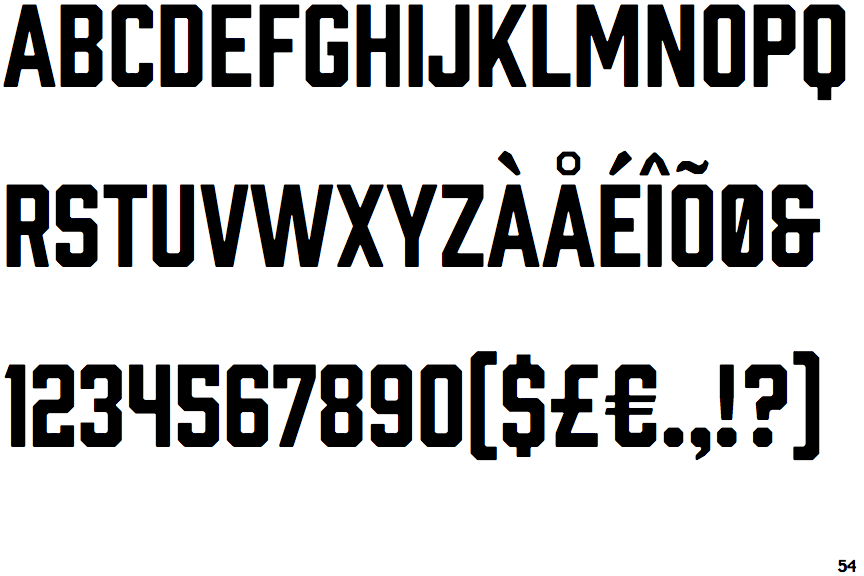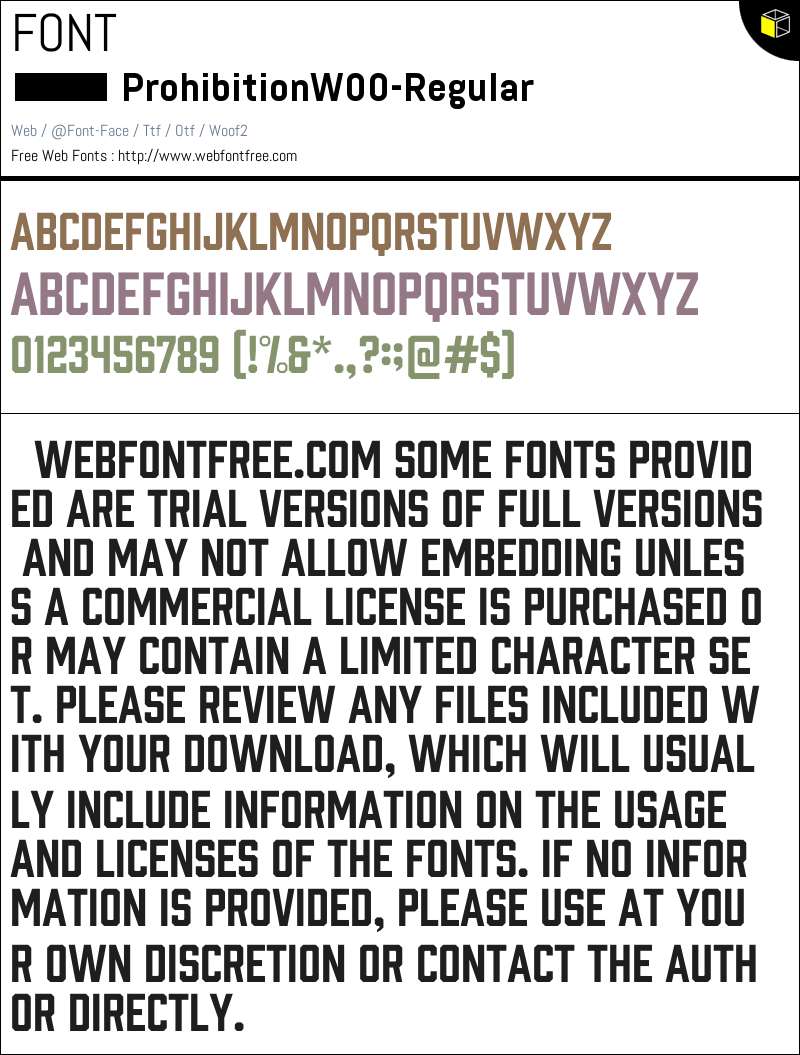
Prohibition Regular Font . Packed with some new features, this vintage sans typeface takes cues from. Web explore prohibition designed by mattox shuler at adobe fonts.
A sans serif typeface with 2 styles, available from adobe fonts for sync. Web prohibition display font family, is a beautiful vintage type family by mattox shuler and published by fort foundry. With this tool, you can easily copy your desired text in svg format without the need to.
Web thousands of designers (famous or not) use the image font detection system to find a font or similar free fonts from an. Web gin thought it could get away with its spirited serifs, but prohibition has arrived and cut them off. Web prohibition regular ver 1.000 𑁋 modified at may 24, 2020. With this tool, you can easily copy your desired text in svg format without the need to.
Prohibition Regular Font - A sans serif typeface with 2 styles, available from adobe fonts for sync. Packed with some new features, this vintage sans typeface takes cues from. Web prohibition display font is a geometric display family that includes 8 various styles for your designing needs. Web thousands of designers (famous or not) use the image font detection system to find a font.
Prohibition Regular Font - Web explore prohibition designed by mattox shuler at adobe fonts. Web prohibition display font is a geometric display family that includes 8 various styles for your designing needs. Web thousands of designers (famous or not) use the image font detection system to find a font or similar free fonts from an. Packed with some new features, this vintage sans typeface.
Prohibition Regular Font - Web prohibition display font is a geometric display family that includes 8 various styles for your designing needs. A sans serif typeface with 2 styles, available from adobe fonts for sync. With this tool, you can easily copy your desired text in svg format without the need to. Web prohibition display font family, is a beautiful vintage type family by.
Prohibition Regular Font - Web prohibition display font is a geometric display family that includes 8 various styles for your designing needs. Web explore prohibition designed by mattox shuler at adobe fonts. A sans serif typeface with 2 styles, available from adobe fonts for sync. With this tool, you can easily copy your desired text in svg format without the need to. Packed with.
Prohibition Regular Font - Web prohibition display font family, is a beautiful vintage type family by mattox shuler and published by fort foundry. With this tool, you can easily copy your desired text in svg format without the need to. Web prohibition regular ver 1.000 𑁋 modified at may 24, 2020. Web explore prohibition designed by mattox shuler at adobe fonts. Web thousands of.
Prohibition Regular Font - Web thousands of designers (famous or not) use the image font detection system to find a font or similar free fonts from an. Web prohibition display font family, is a beautiful vintage type family by mattox shuler and published by fort foundry. Web prohibition display font is a geometric display family that includes 8 various styles for your designing needs..
Prohibition Regular Font - Web gin thought it could get away with its spirited serifs, but prohibition has arrived and cut them off. With this tool, you can easily copy your desired text in svg format without the need to. Web prohibition regular ver 1.000 𑁋 modified at may 24, 2020. Packed with some new features, this vintage sans typeface takes cues from. A.
Prohibition Regular Font - A sans serif typeface with 2 styles, available from adobe fonts for sync. Web prohibition display font is a geometric display family that includes 8 various styles for your designing needs. Web gin thought it could get away with its spirited serifs, but prohibition has arrived and cut them off. Web explore prohibition designed by mattox shuler at adobe fonts..
Prohibition Regular Font - Web prohibition regular ver 1.000 𑁋 modified at may 24, 2020. Packed with some new features, this vintage sans typeface takes cues from. Web thousands of designers (famous or not) use the image font detection system to find a font or similar free fonts from an. With this tool, you can easily copy your desired text in svg format without.
Prohibition Regular Font - Web prohibition display font is a geometric display family that includes 8 various styles for your designing needs. Web explore prohibition designed by mattox shuler at adobe fonts. Web prohibition regular ver 1.000 𑁋 modified at may 24, 2020. Packed with some new features, this vintage sans typeface takes cues from. Web thousands of designers (famous or not) use the.
Prohibition Regular Font - Web explore prohibition designed by mattox shuler at adobe fonts. Packed with some new features, this vintage sans typeface takes cues from. A sans serif typeface with 2 styles, available from adobe fonts for sync. Web gin thought it could get away with its spirited serifs, but prohibition has arrived and cut them off. Web prohibition display font family, is.